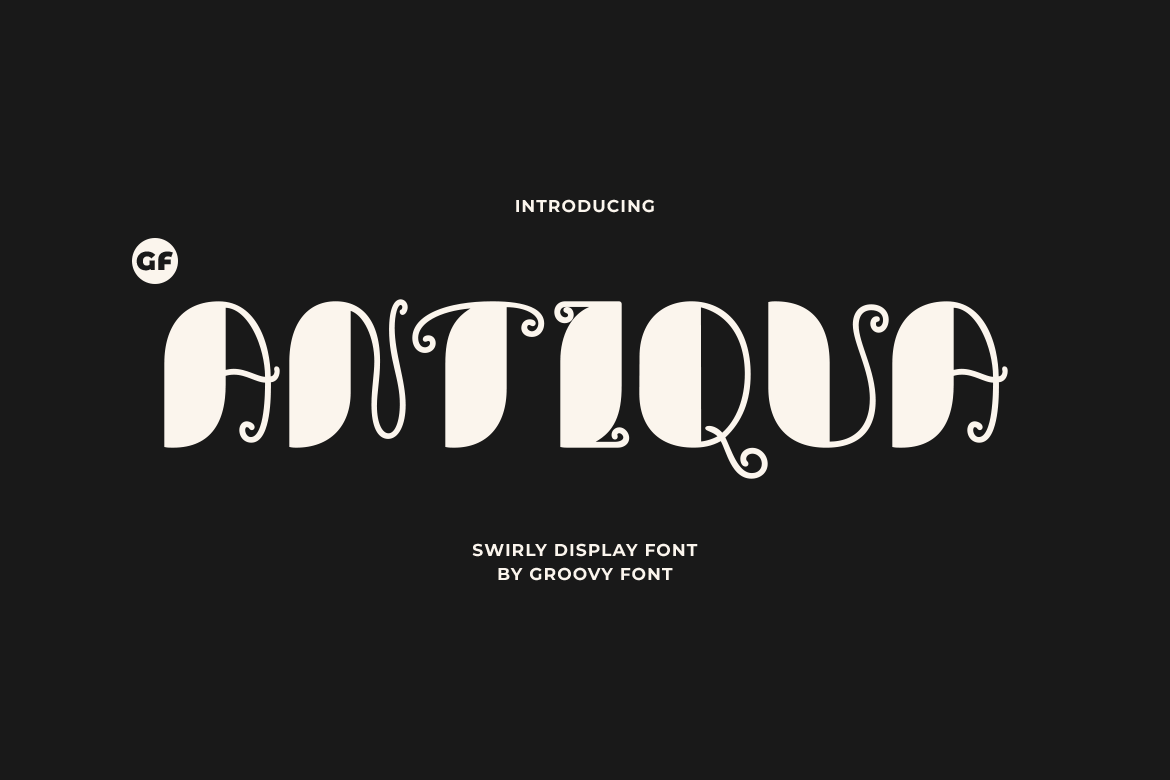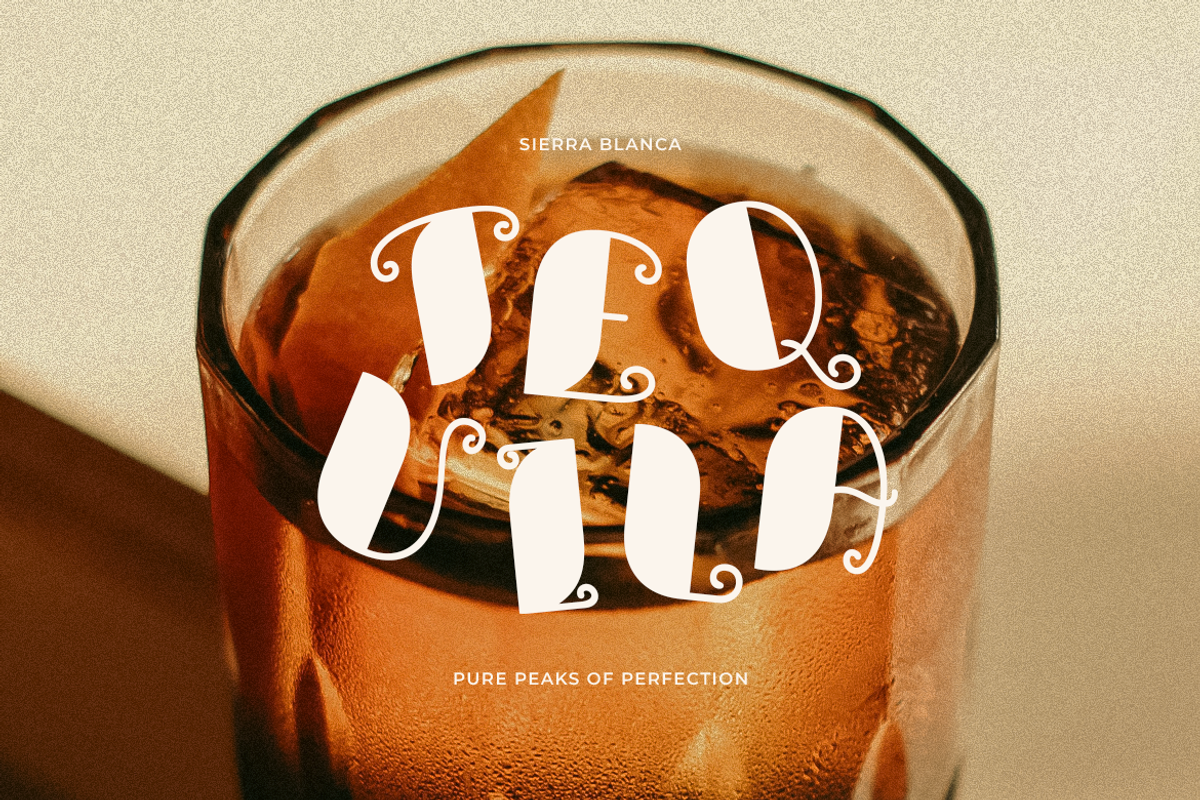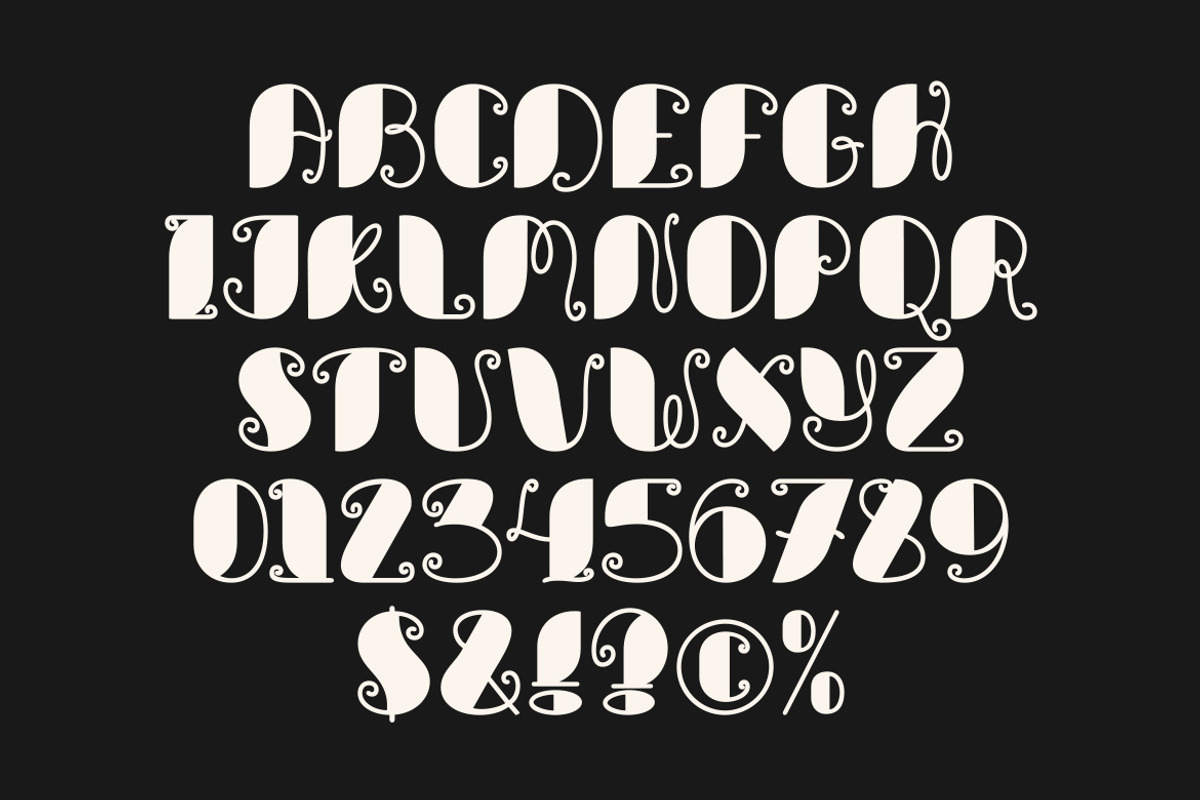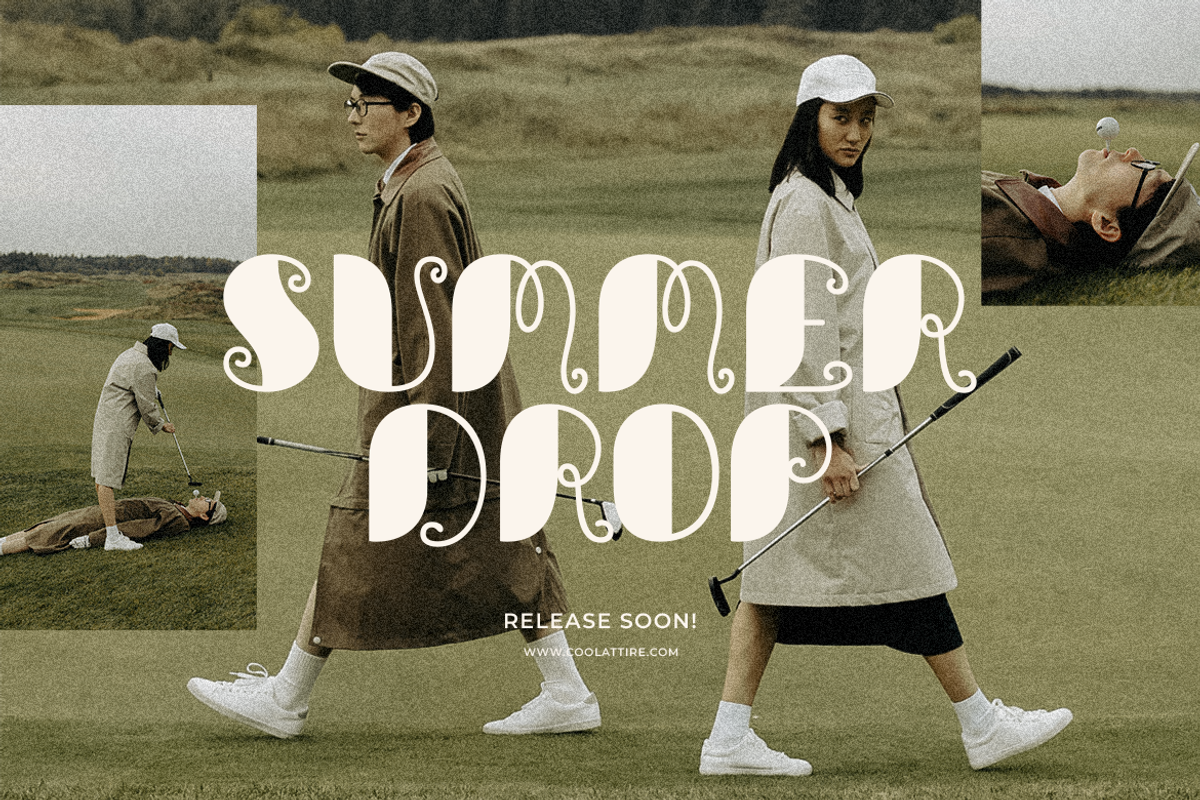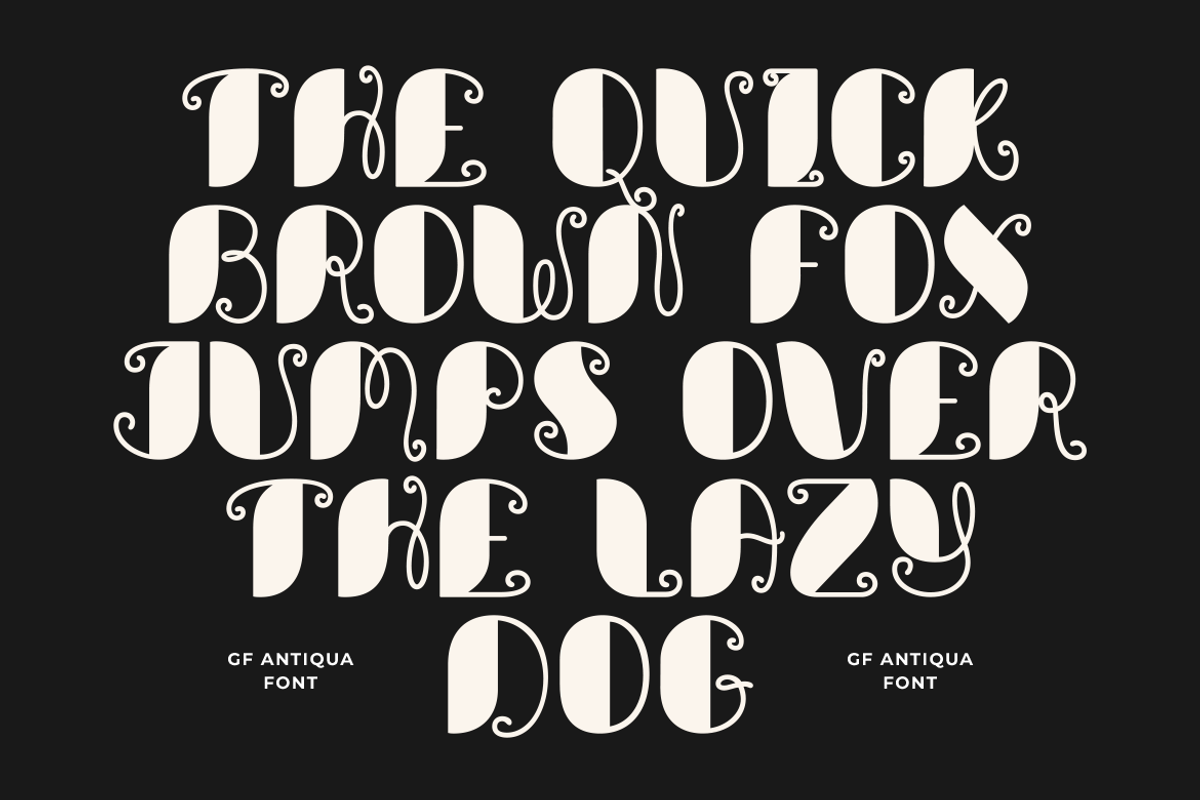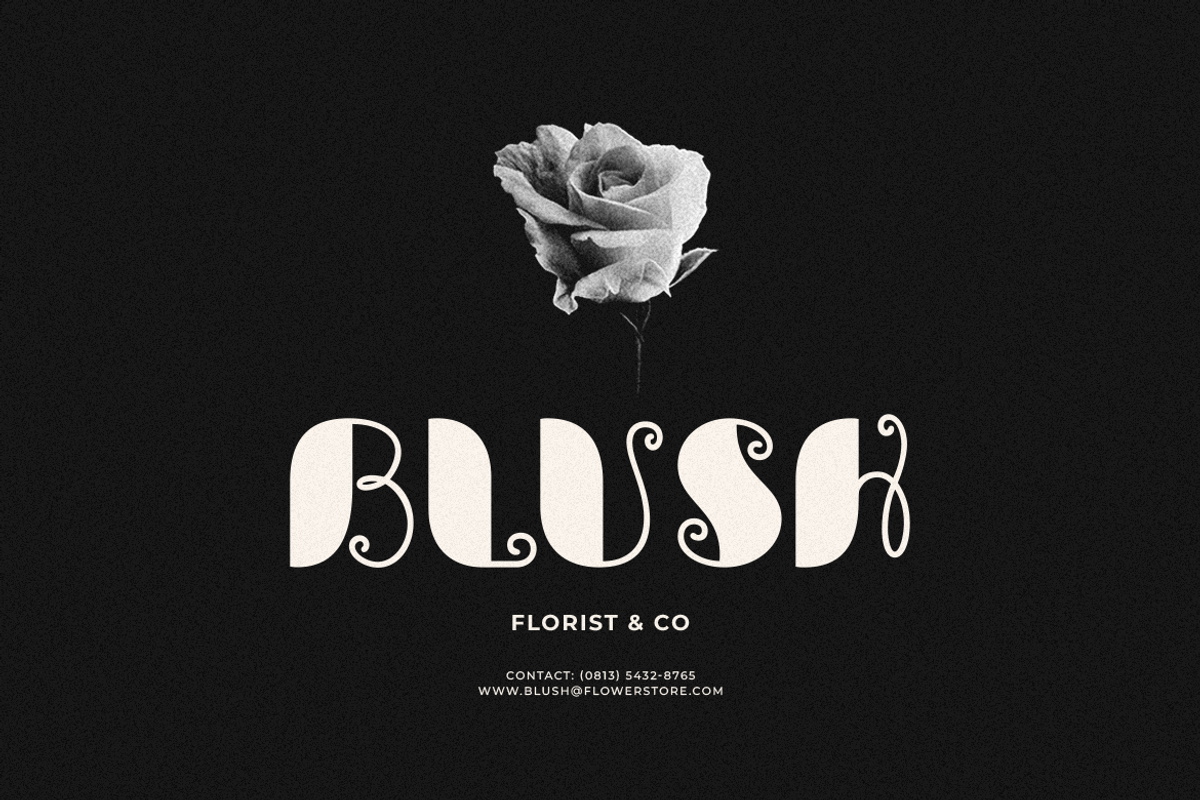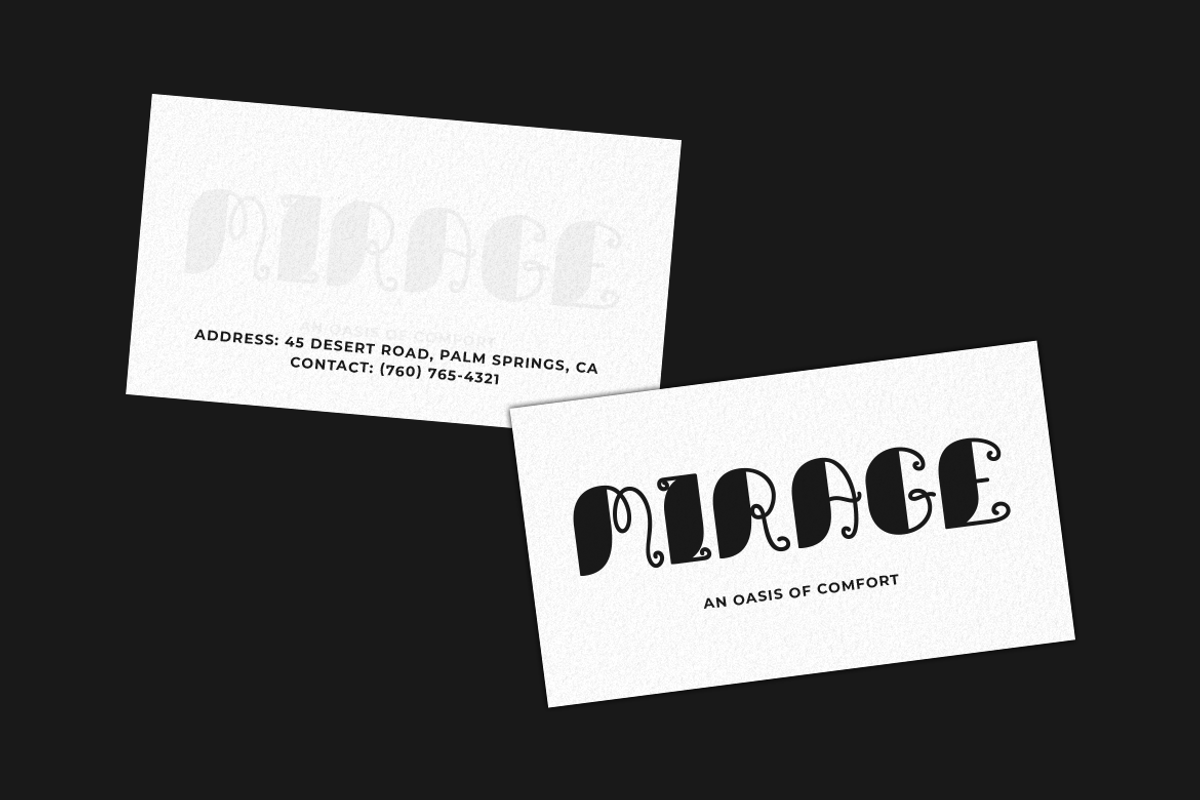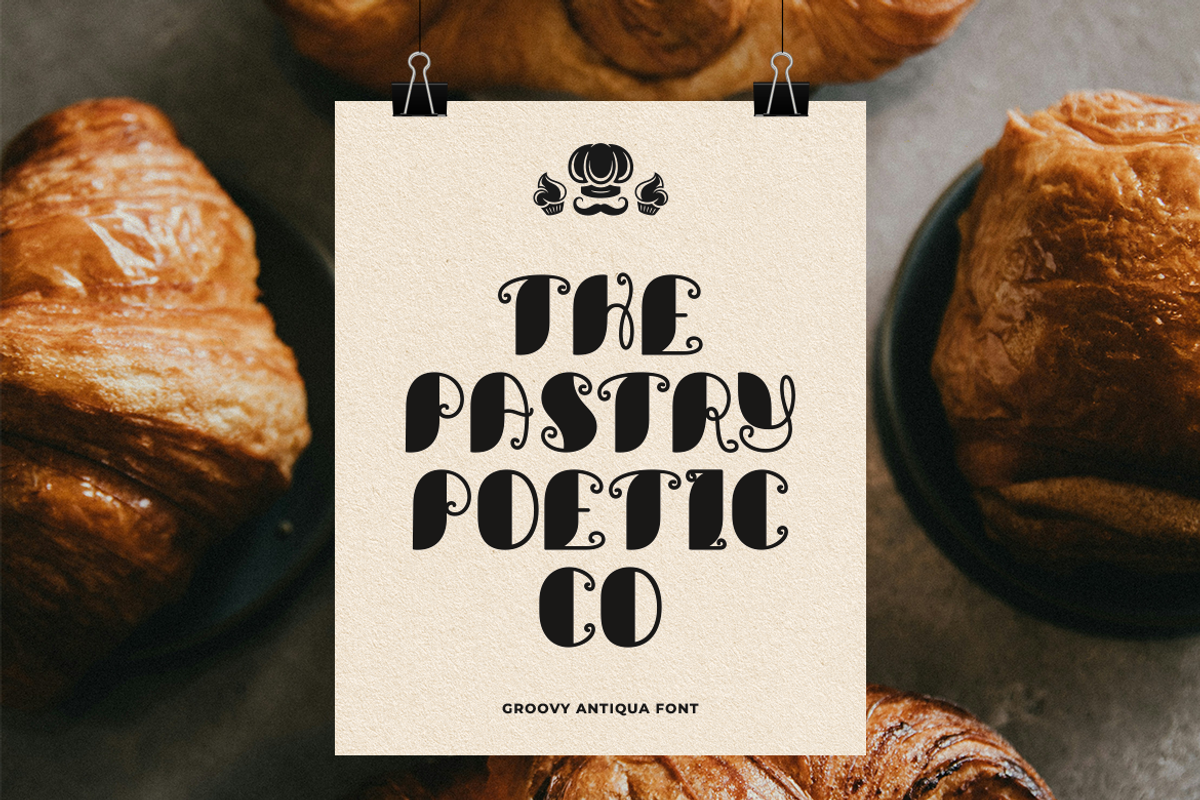
GF Antiqua - Swirly Display Font
GF Antiqua is a charming display font characterized by elegant swirls and intricate curly tails for added flair.
Whether used for headlines, logos, posters, or any other creative endeavor, Groovy Antiqua is sure to make a statement and catch the eye of the audience.